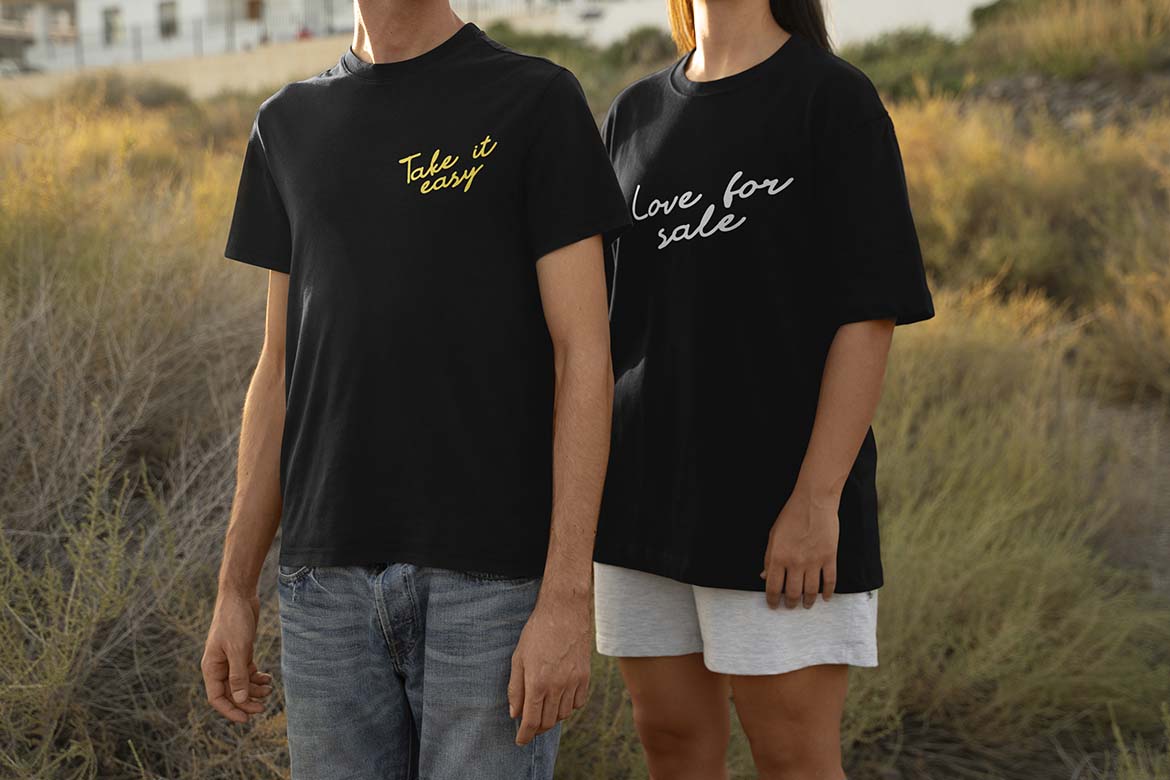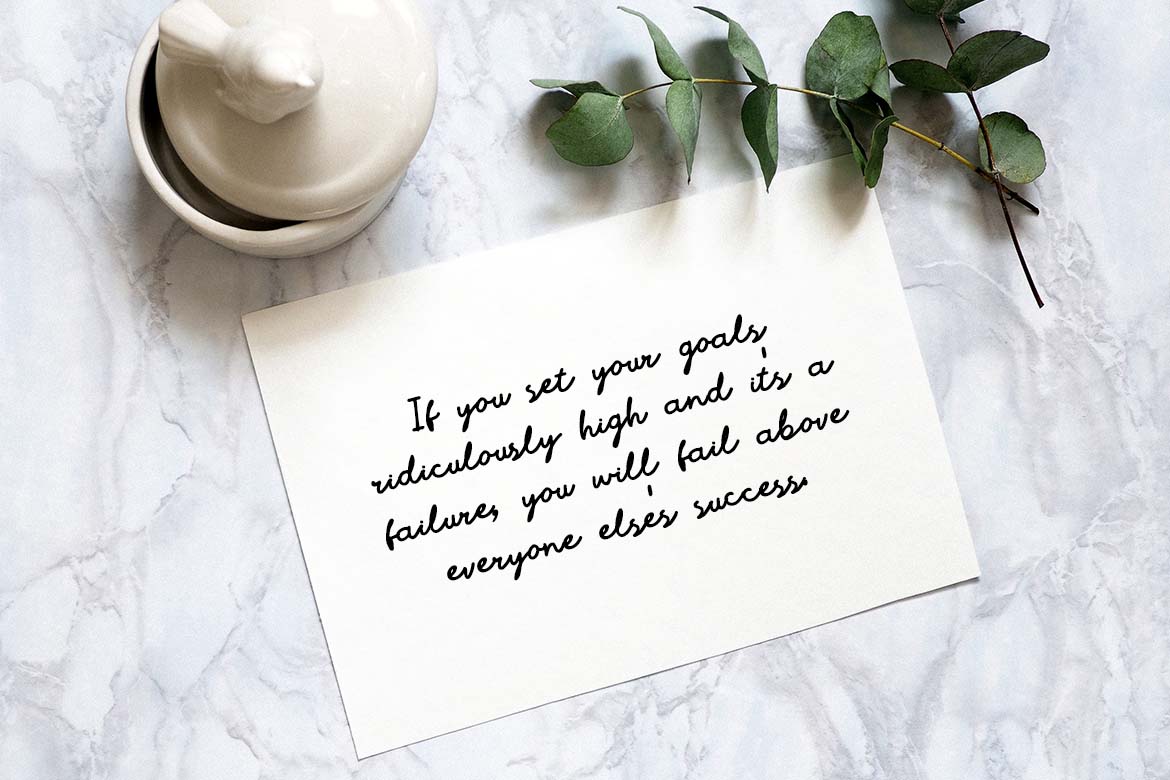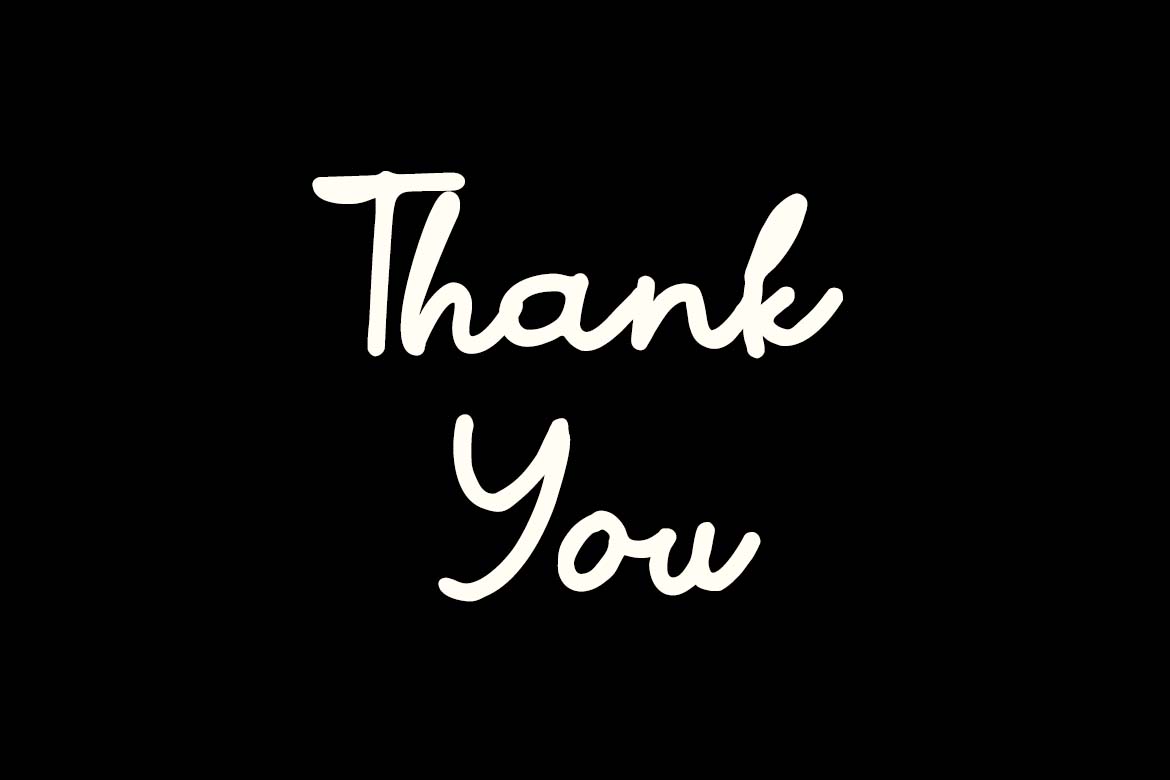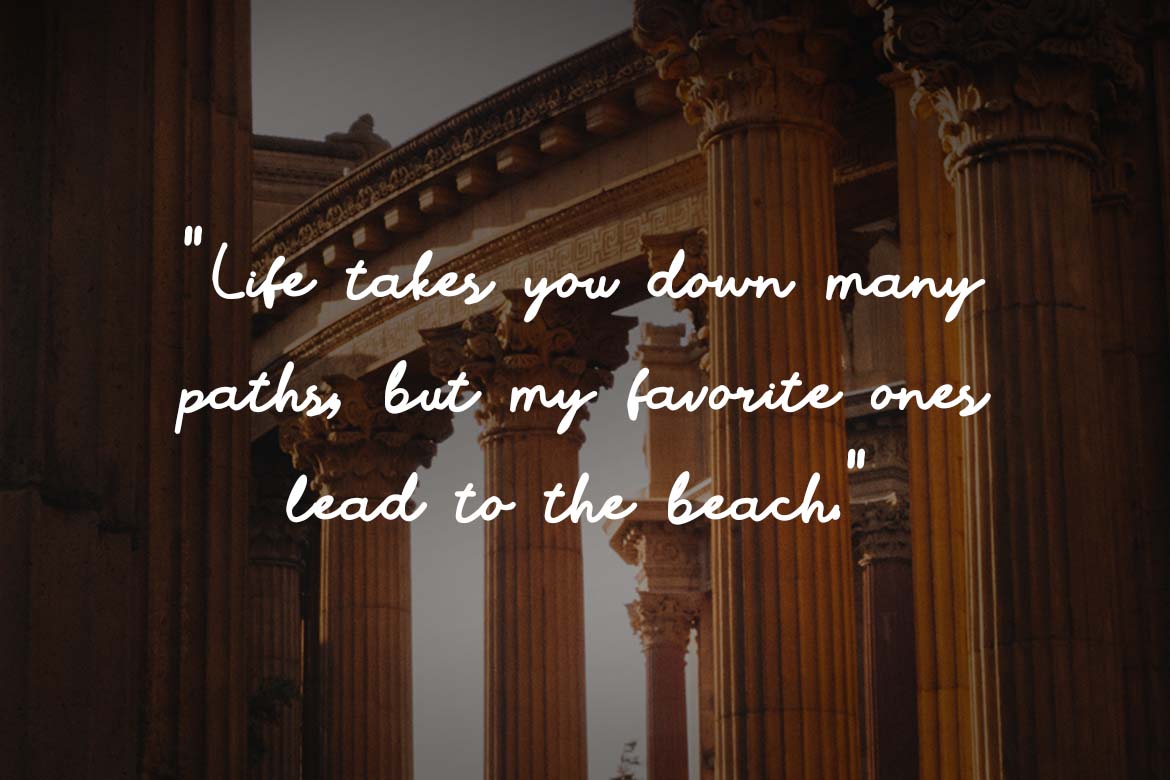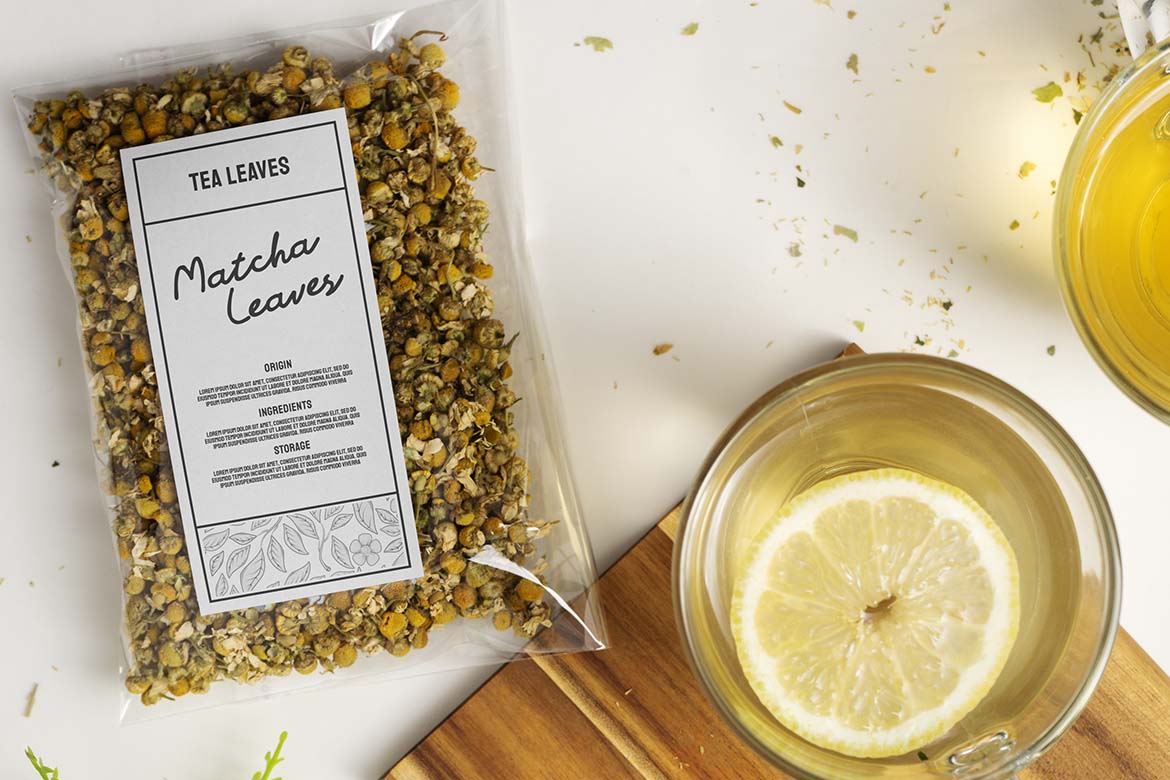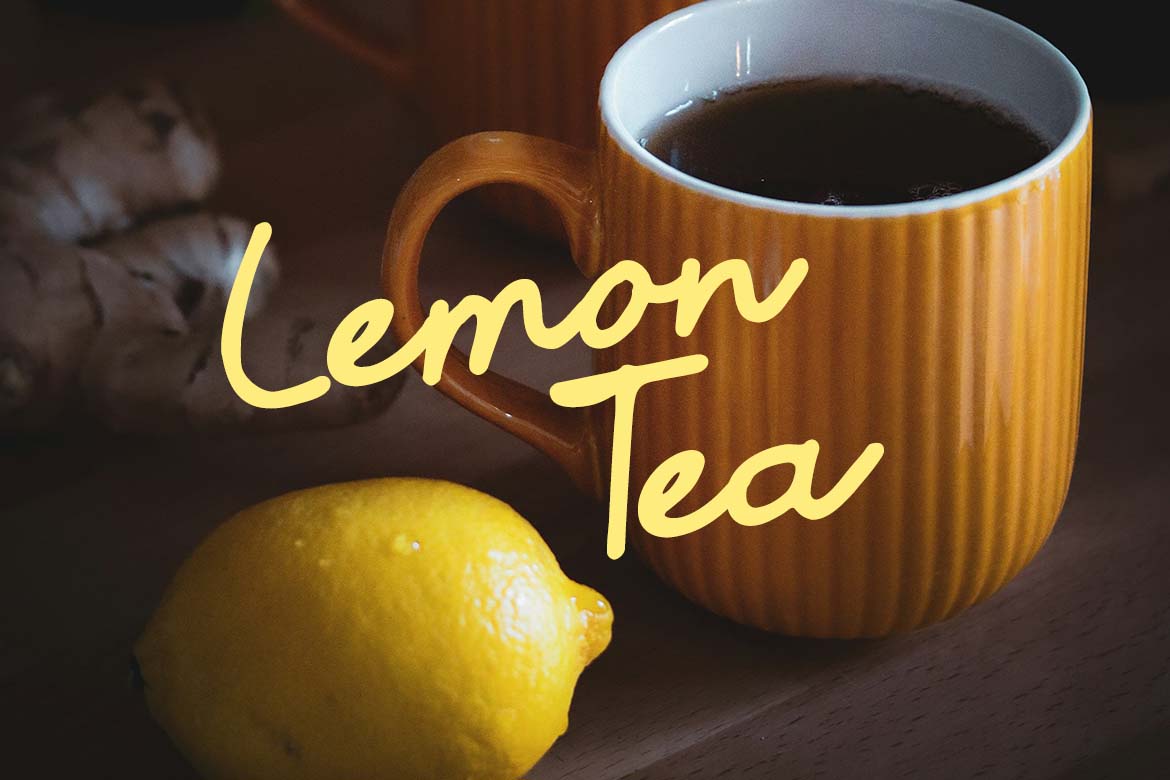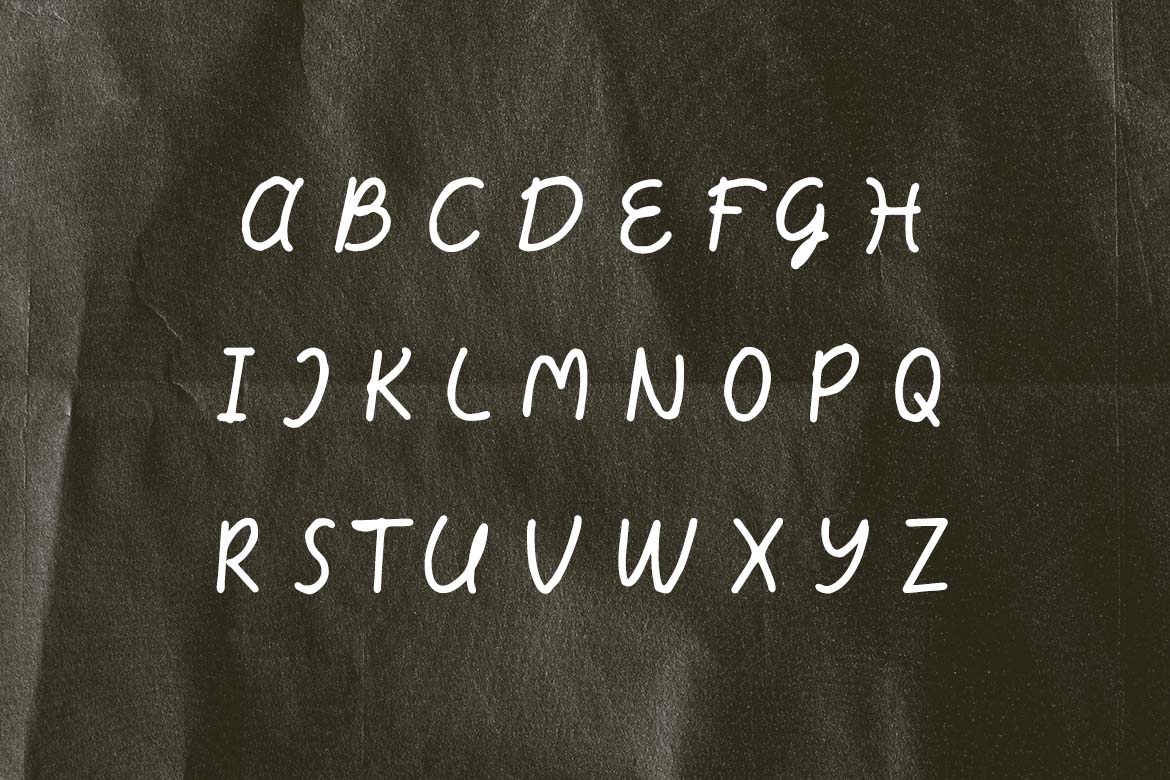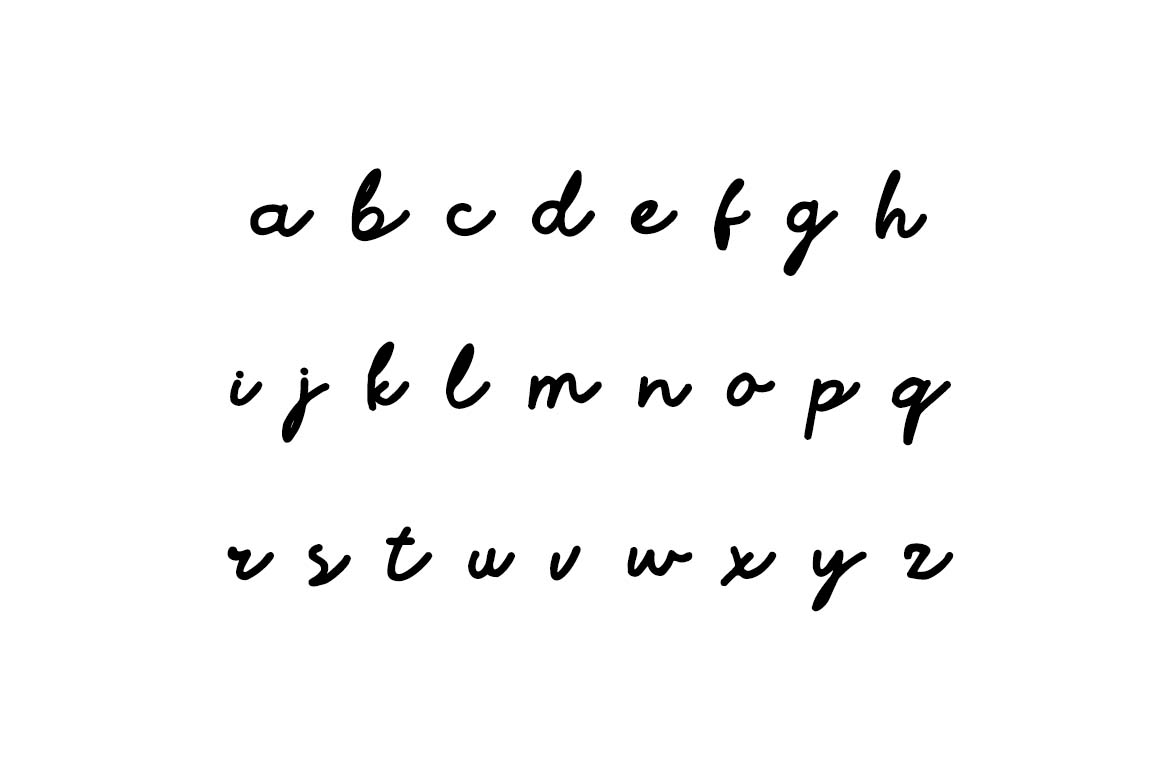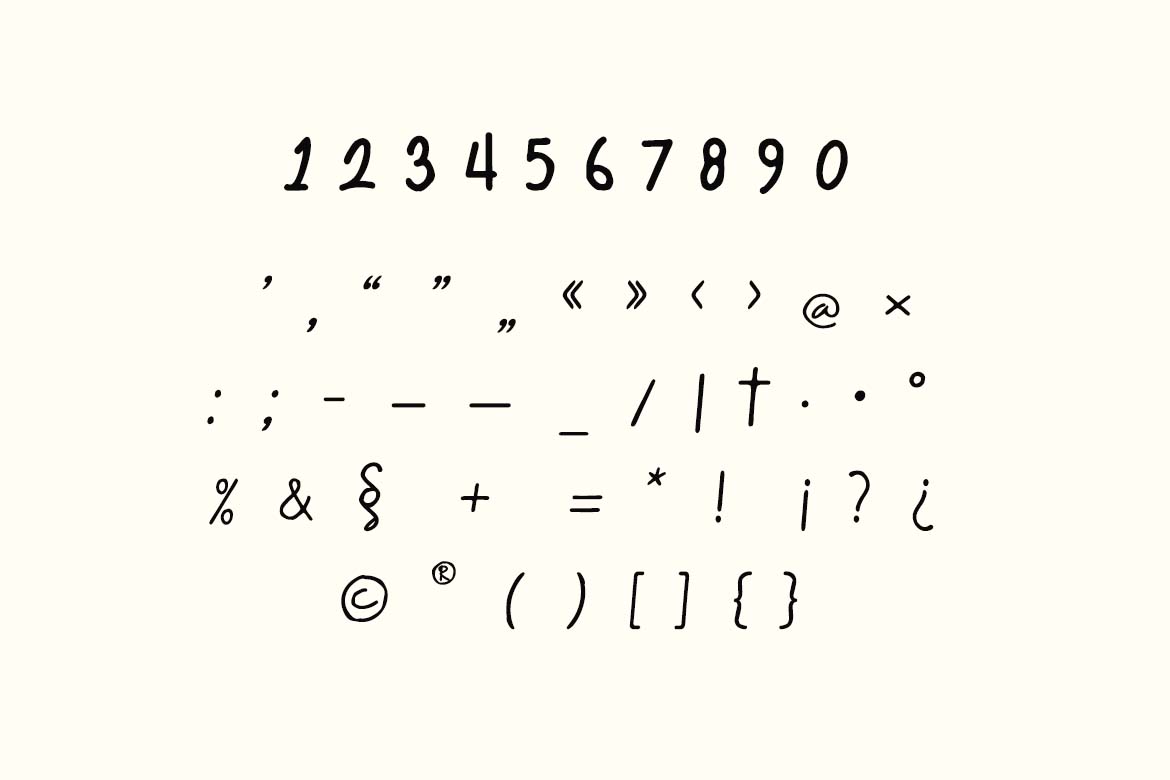
Holiday Regency Retro Vibes Script Font
Holiday Regency Retro Vibes Script Font. The modern display font feels beautiful classy, elegant, and stylish. This font is ideally suited for a wide variety of projects, such as signature, stationery, logo, wedding, typography quotes, magazine or book covers, website headers, branding, and more. Also, fashion-related branding or editorial design displays both masculine and feminine qualities.